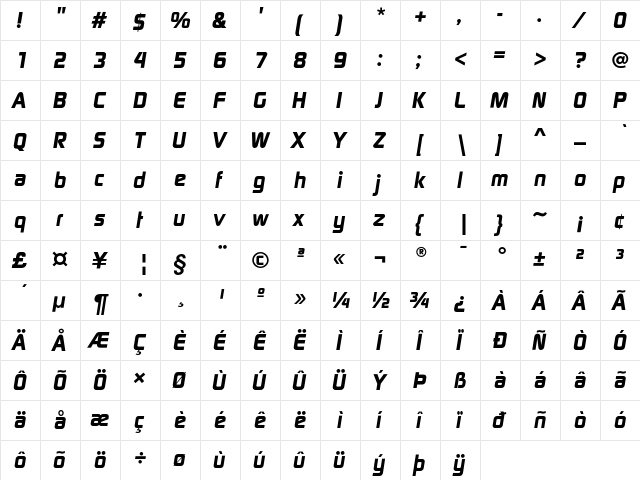
DigitalEF Bold Italic Font Preview
Design Context for DigitalEF Typeface
DigitalEF channels digital-age aesthetics through its sharp, structured letterforms — ideal for brands that want to signal innovation. The slanted form adds forward momentum and visual energy. The heavy weight commands attention and anchors typographic hierarchies.
Pro Tip: Try DigitalEF with generous letter-spacing in UI labels and navigation — the geometric forms benefit from room to breathe.